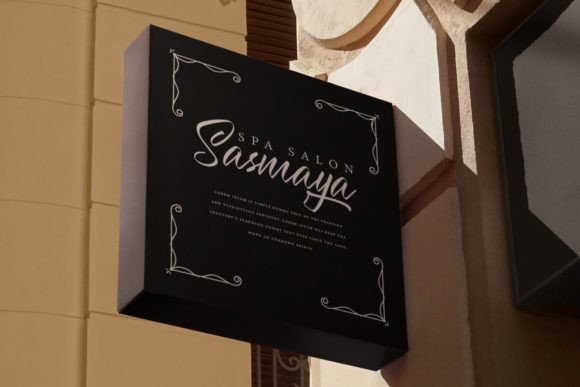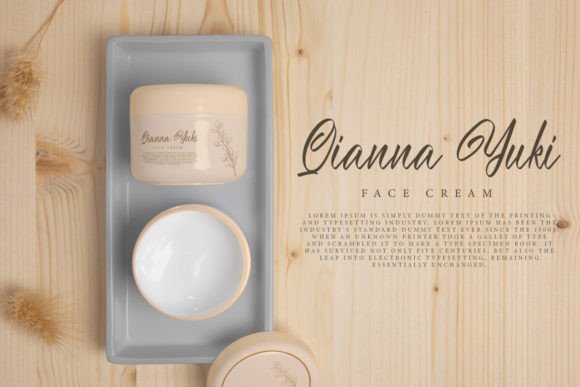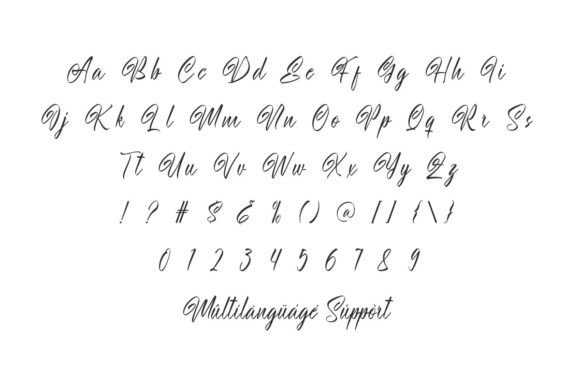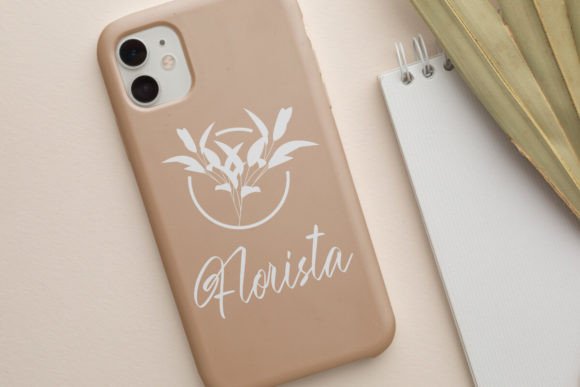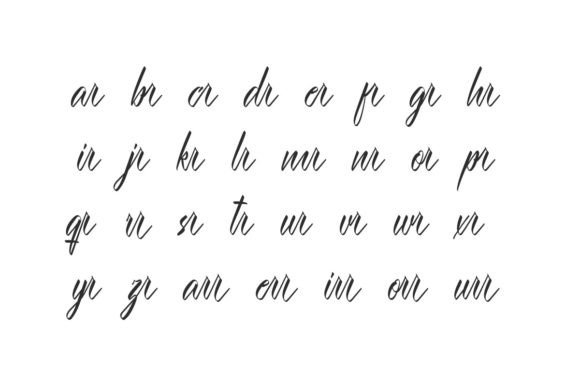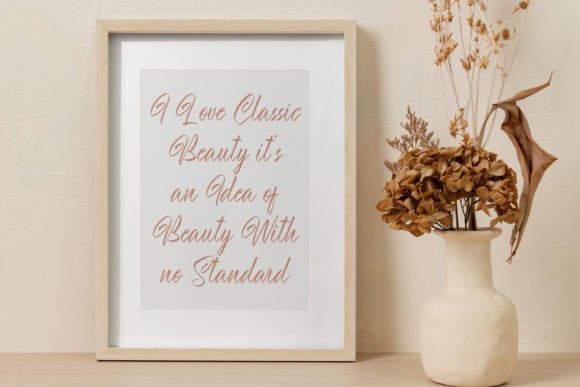
Discover the Timeless Elegance of Classic Moura Font
In the world of typography, few fonts manage to capture the essence of classic elegance and sophistication. The Classic Moura Font is one such typeface that stands out for its beautiful calligraphic script and timeless aesthetic appeal. This stunning font is a perfect addition to any design project, offering a unique blend of traditional charm and modern versatility.
What is Classic Moura Font?
Classic Moura is a gorgeous calligraphic script font that boasts a classic aesthetic touch. Its intricate curves and twists make it a standout in the world of typography. This font can be categorized as a difficult typeface, not because it’s hard to read or use, but because of the beautiful nuances in each character that require a discerning eye to appreciate fully.
Key Features of Classic Moura Font
- Calligraphic Script: Classic Moura features a beautiful, flowing script that mimics the look of hand-calligraphy. Each letter is carefully crafted to create a sense of movement and fluidity.
- Classic Aesthetic: The font’s classic aesthetic makes it perfect for designs that require a touch of tradition and sophistication. Whether you’re creating a logo, brochure, or website, Classic Moura adds a level of elegance that’s hard to match.
- Difficult Typeface: As mentioned earlier, Classic Moura is considered a difficult typeface due to its intricate curves and twists. However, this complexity is what makes it so visually stunning.
Uses of Classic Moura Font
So, what can you use Classic Moura Font for? The possibilities are endless! Here are some ideas to get you started:
- Brand Logo: Create a stunning logo for your brand that exudes elegance and sophistication.
- Brochure and Catalog: Use Classic Moura to create visually appealing brochures and catalogs that showcase your products or services.
- Cover and Invitation: Design beautiful covers and invitations for special events, such as weddings, parties, or conferences.
- Label and Menu: Create eye-catching labels and menus for restaurants, cafes, or product packaging.
- Flyer and Product Packaging: Use Classic Moura to create stunning flyers and product packaging that stands out from the crowd.
- Quote and Screen Print: Design inspiring quotes and screen prints that feature the beautiful curves of Classic Moura.
- Signage and Stationery: Create elegant signage and stationery for your business or personal use.
- Sticker and Title: Use Classic Moura to create stunning stickers and titles for your designs.
- Website: Add a touch of elegance to your website with Classic Moura Font.
Why Choose Classic Moura Font?
So, why should you choose Classic Moura Font for your design project? Here are a few compelling reasons:
- Unique and Versatile: Classic Moura is a one-of-a-kind font that offers unparalleled versatility. You can use it for a wide range of design projects, from logos to websites.
- Elegant and Sophisticated: The font’s classic aesthetic and beautiful curves make it perfect for designs that require a touch of elegance and sophistication.
- High-Quality Design: Classic Moura is designed with precision and attention to detail, ensuring that your designs look professional and polished.
In conclusion, Classic Moura Font is a stunning calligraphic script font that offers a unique blend of classic elegance and modern versatility. Its intricate curves and twists make it a standout in the world of typography, and its wide range of uses makes it a valuable addition to any design project. Whether you’re a designer, crafter, or simply someone who appreciates beautiful typography, Classic Moura Font is definitely worth checking out.